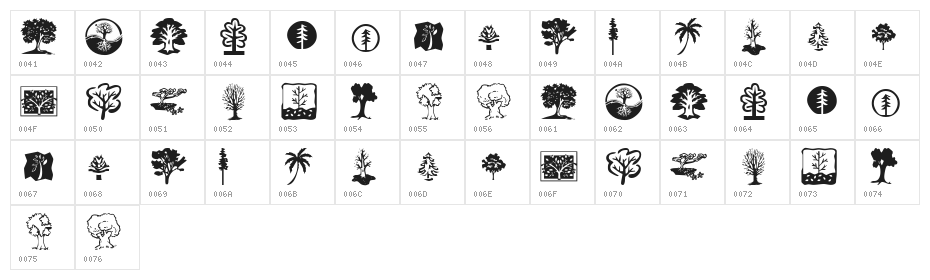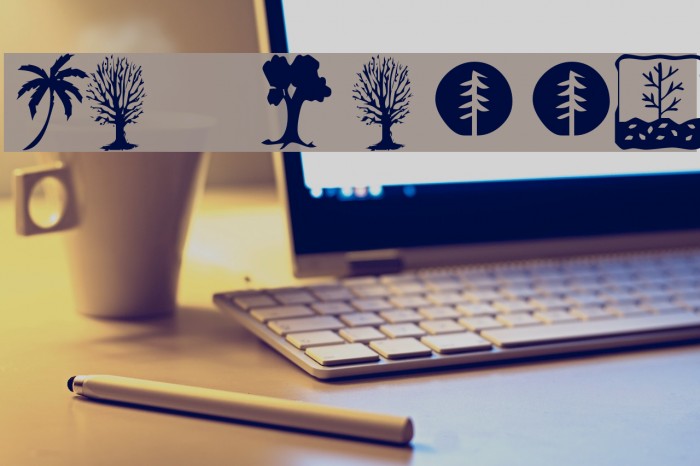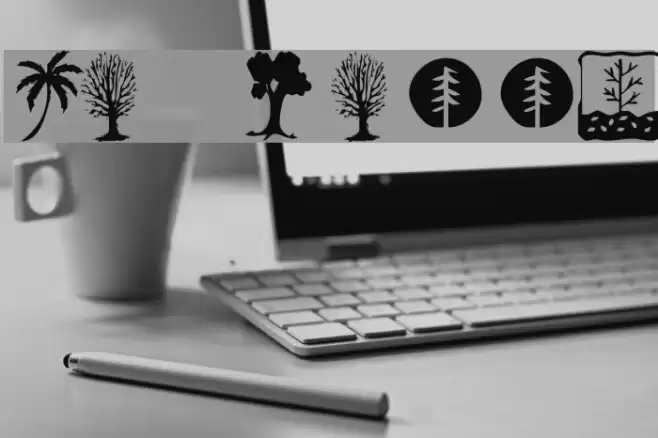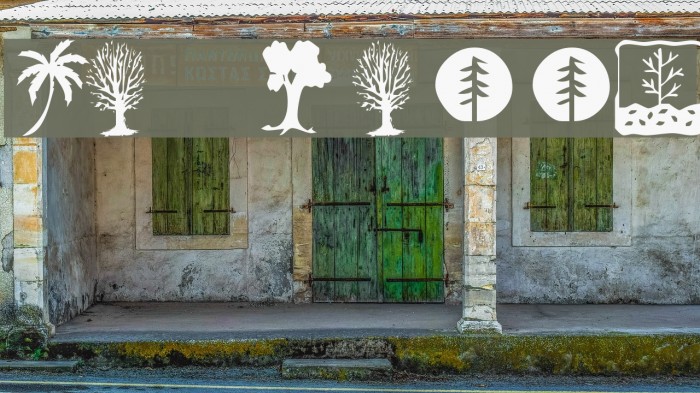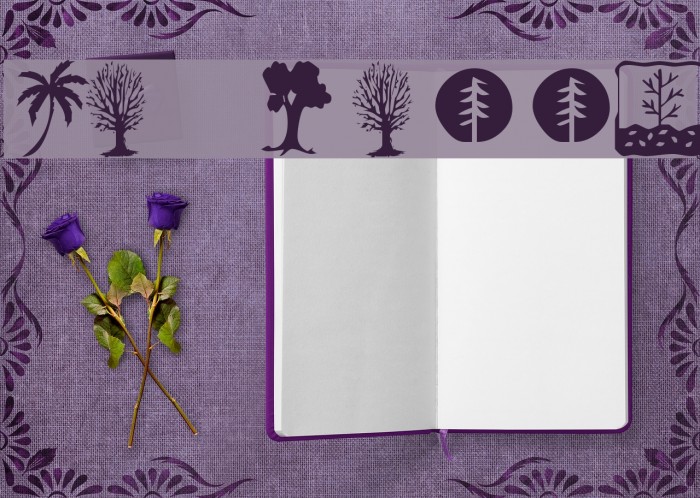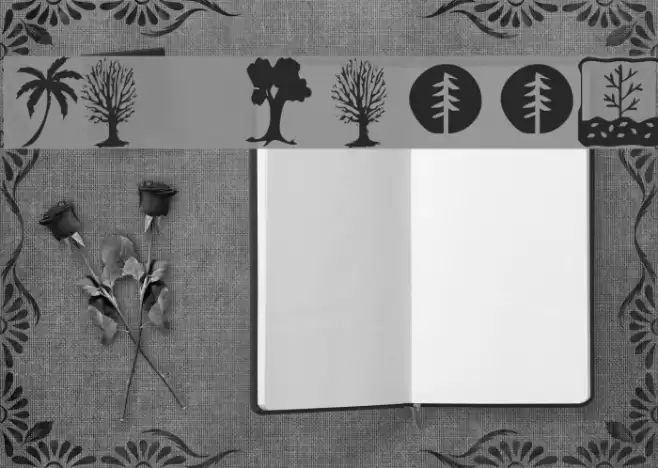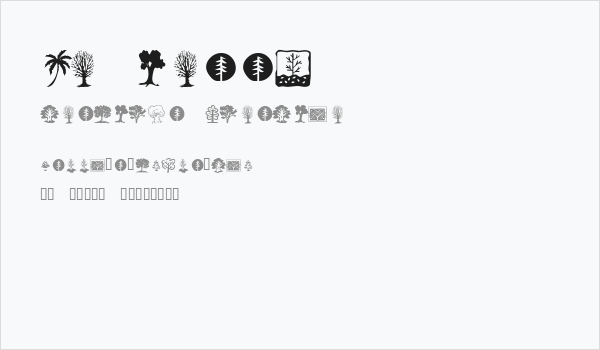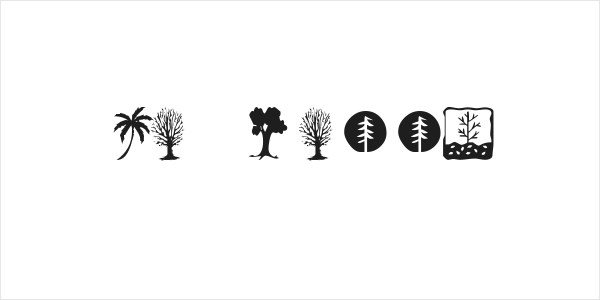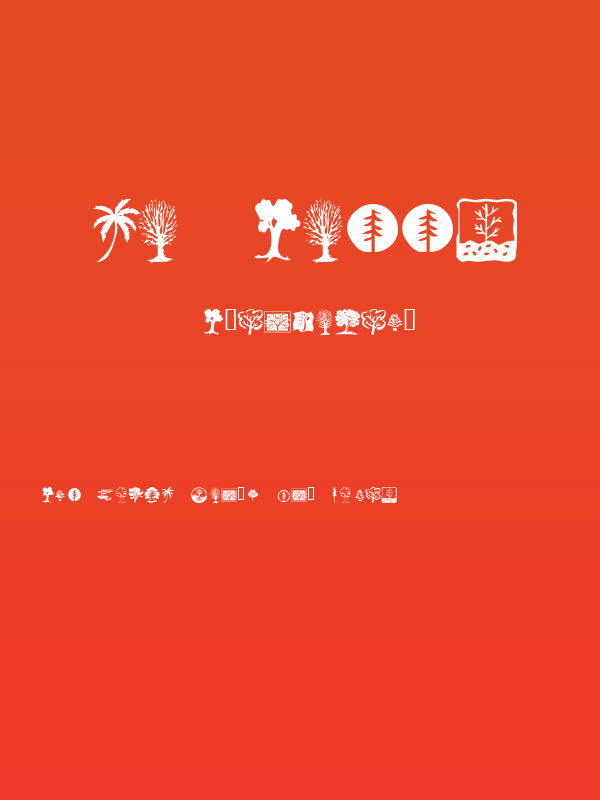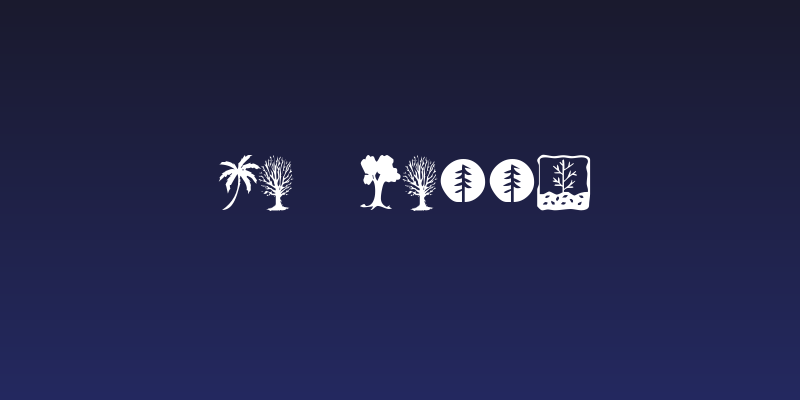
KR Trees Font
KR Trees Description
This collection features a variety of tree-themed icons, each uniquely designed to represent different types of trees and foliage. The icons range from simple silhouettes to more detailed illustrations, capturing the essence of nature in a stylized manner. The designs include circular frames, standalone trees, and intricate patterns, offering a diverse selection for creative projects. The bold, black-and-white contrast ensures that each icon stands out, making them suitable for both digital and print media. The overall style is decorative, with a focus on natural elements, providing a versatile set of graphics for various applications.
| Use Case | Logos, Decorative elements, Branding |
| Proposed Projects | Ideal for environmental campaigns, nature-themed branding, educational materials, and decorative elements in graphic design projects. |